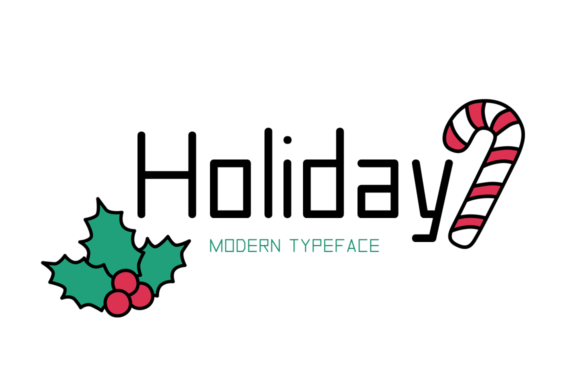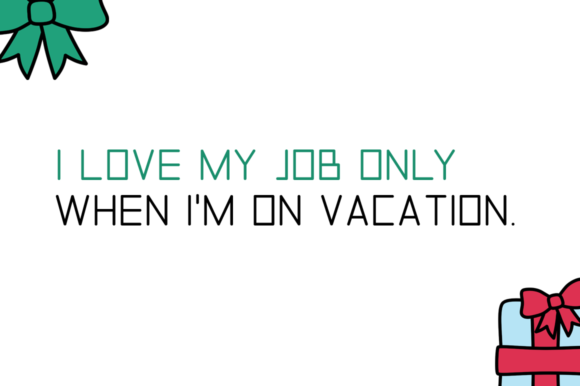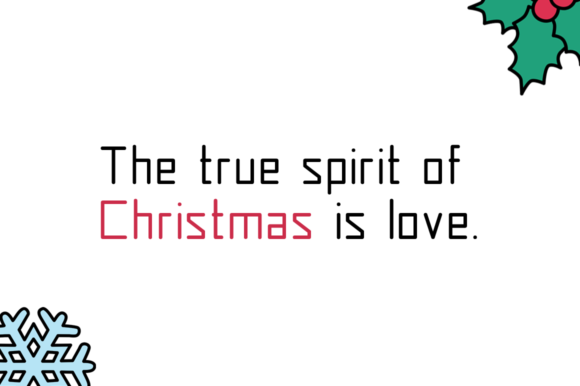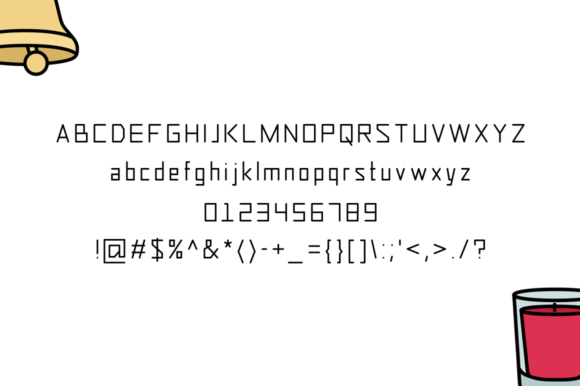
The Perfect Font for a Festive Season
As a designer, there’s nothing quite like the thrill of brainstorming new ideas for a holiday campaign. You’ve got your colors, your graphics, and your message – but something’s missing. That’s when you stumble upon the perfect font to tie everything together. And for this festive season, we’re excited to introduce you to Holiday Font, a cheerful and vibrant display font that’s sure to elevate any holiday-themed project.
Whether you’re creating a merry Christmas card, a spooky Halloween poster, or a fun New Year’s Eve invitation, Holiday Font is the perfect addition to your design arsenal. Its playful and festive feel will transport your audience to a world of joy and celebration, making it a valuable asset for designers looking to create memorable holiday content.
Holiday Font Key Features
- Size: Supports font sizes ranging from 8pt to 120pt, ideal for various applications, including digital and print media
- Resolution: Optimized for high-resolution displays (Retina and 4K) at a resolution of 300 DPI (Dots Per Inch)
- Unique Characteristic: The font features a unique blend of modern and traditional elements, creating a festive and playful atmosphere
- Language Support: Supports a wide range of languages, including English, Spanish, French, German, and many more
- Font Weight: Offers a range of font weights, from Light to Extra Bold, allowing for flexibility in design and typography
Holiday Font Review
Overall, I found the Holiday Font to be a charming and festive addition to any design project. ✨ Its playful and whimsical feel is perfect for capturing the spirit of the holiday season. The font’s combination of bold lines and soft curves creates a unique visual interest that’s sure to stand out.
The font’s versatility is one of its strongest assets. It can be used for a wide range of applications, from greeting cards and invitations to social media graphics and advertisements. ✨ I also appreciate the font’s scalability, as it remains legible and clear even at smaller sizes.
However, I do have a few reservations about the Holiday Font. ⚠️ One of the main limitations is its lack of subtlety. The font is quite loud and attention-grabbing, which may not be suitable for all design projects. Additionally, some of the characters may not be as well-designed as others, which can create a jarring effect when used in conjunction with other fonts.
- Lack of subtlety
- Some characters may not be as well-designed as others
- May not be suitable for all design projects
Overall, I would recommend the Holiday Font for designers who want to add a touch of festive flair to their projects. While it may not be the most sophisticated or versatile font, its playful charm and wide range of applications make it a great choice for the holiday season.
Tips for Getting the Most Out of Holiday Font
Use Holiday Font to add a festive touch to your holiday cards, invitations, and decorations. Experiment with different font sizes, colors, and styles to create a unique look. Consider combining Holiday Font with other festive elements, such as snowflakes, holly, or candy canes, to create a cohesive design.
Holiday Font is perfect for:
– Holiday cards and invitations
– Social media graphics and ads
– Party decorations and signage
– Gift tags and wrapping paper
– Holiday-themed merchandise and branding